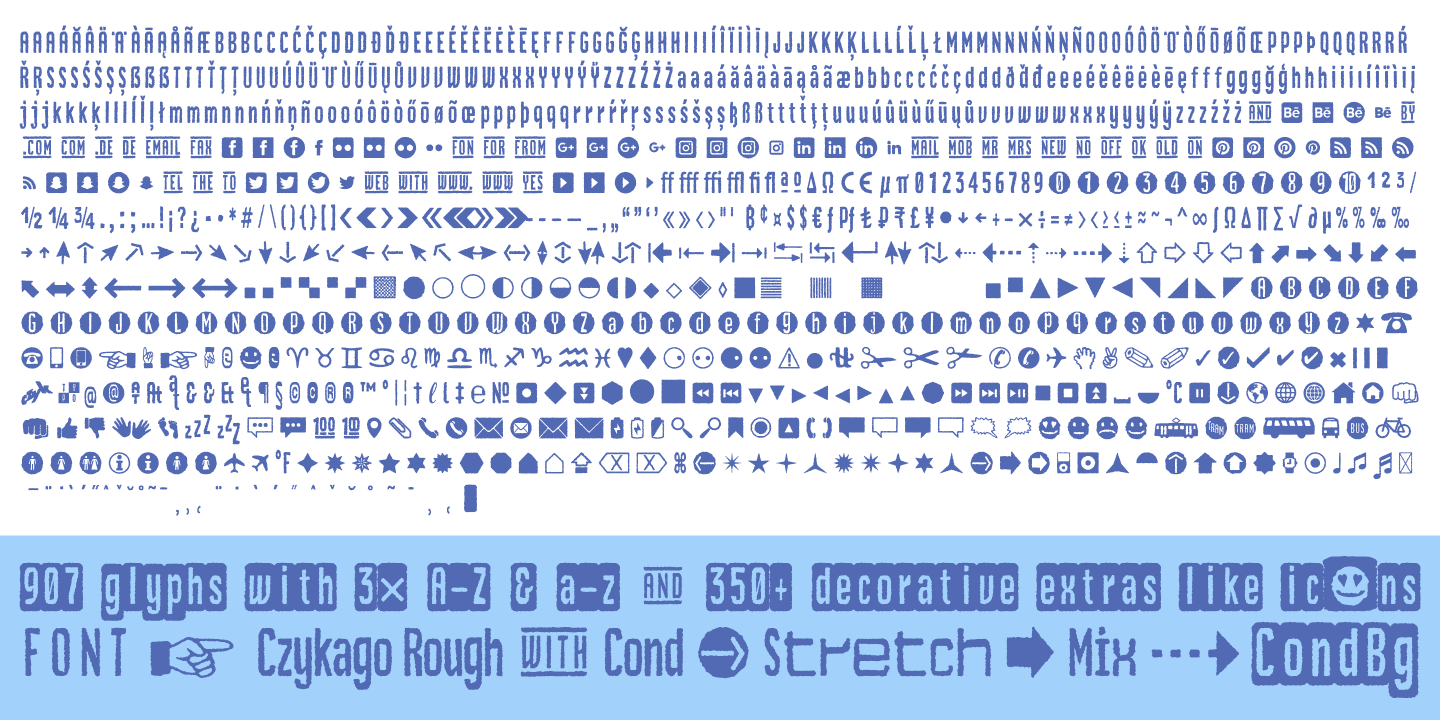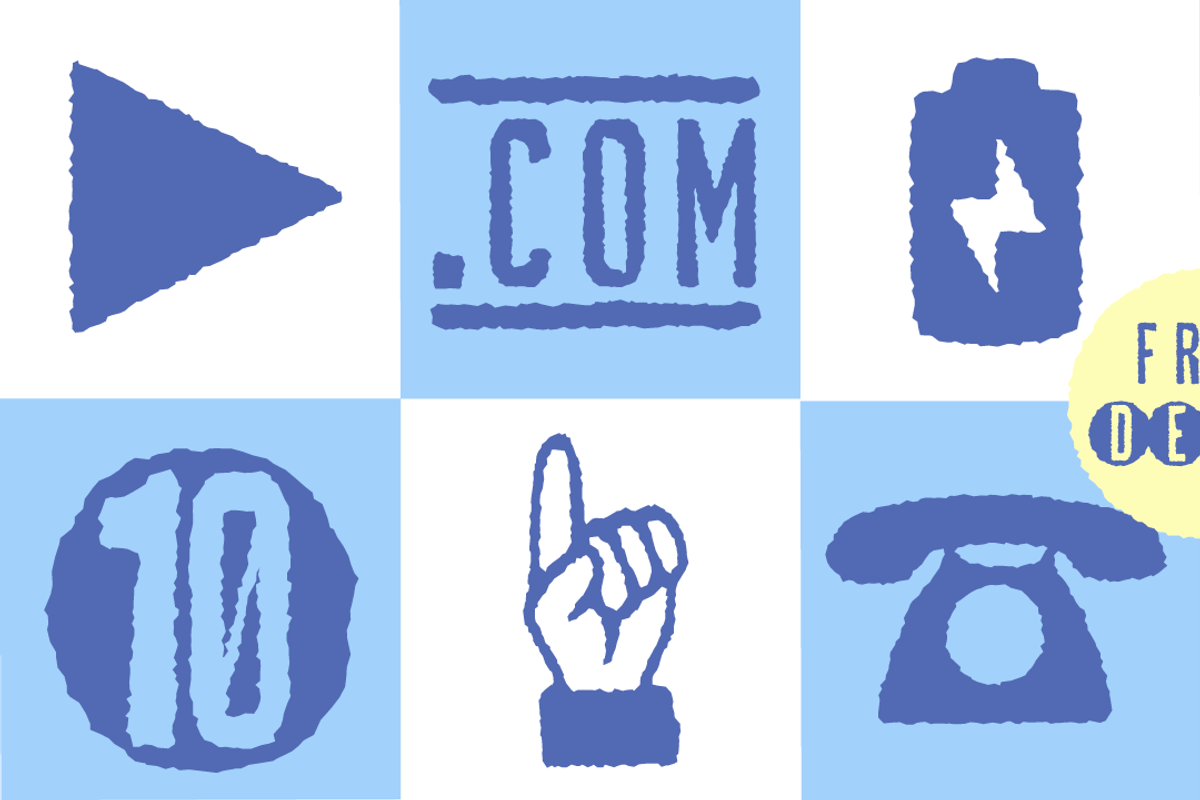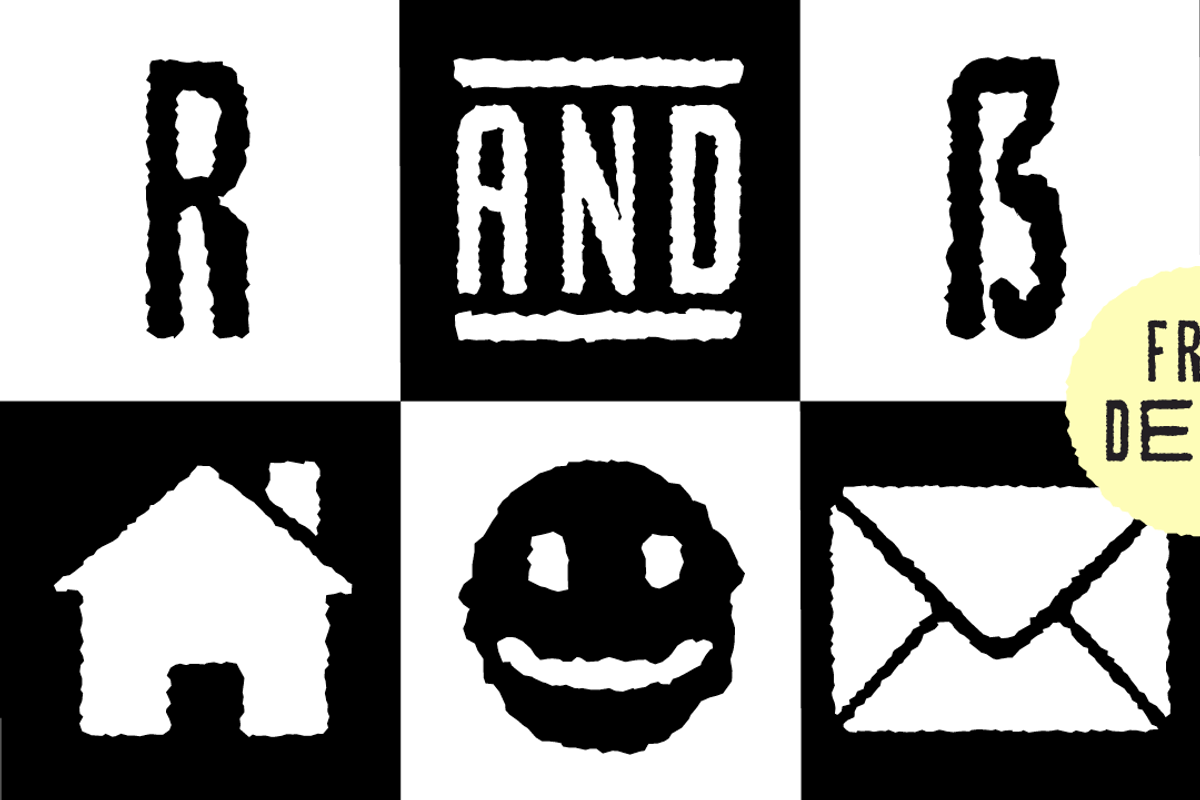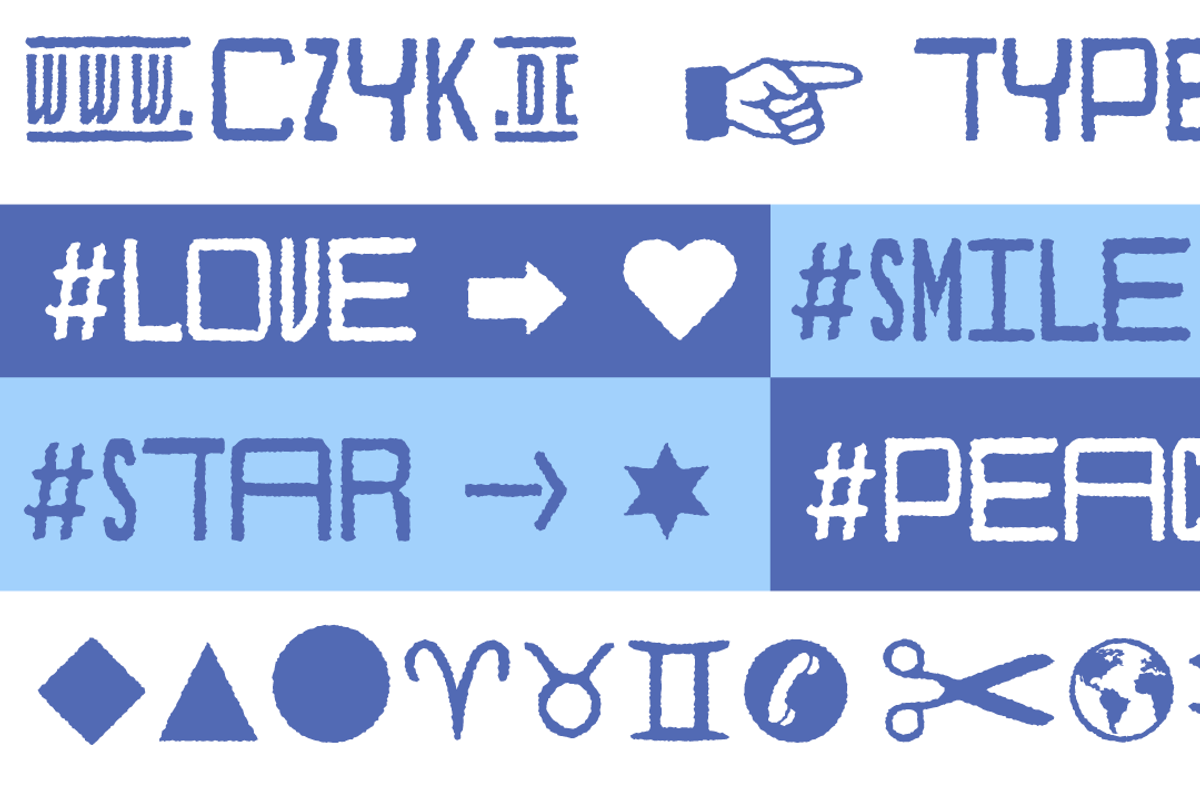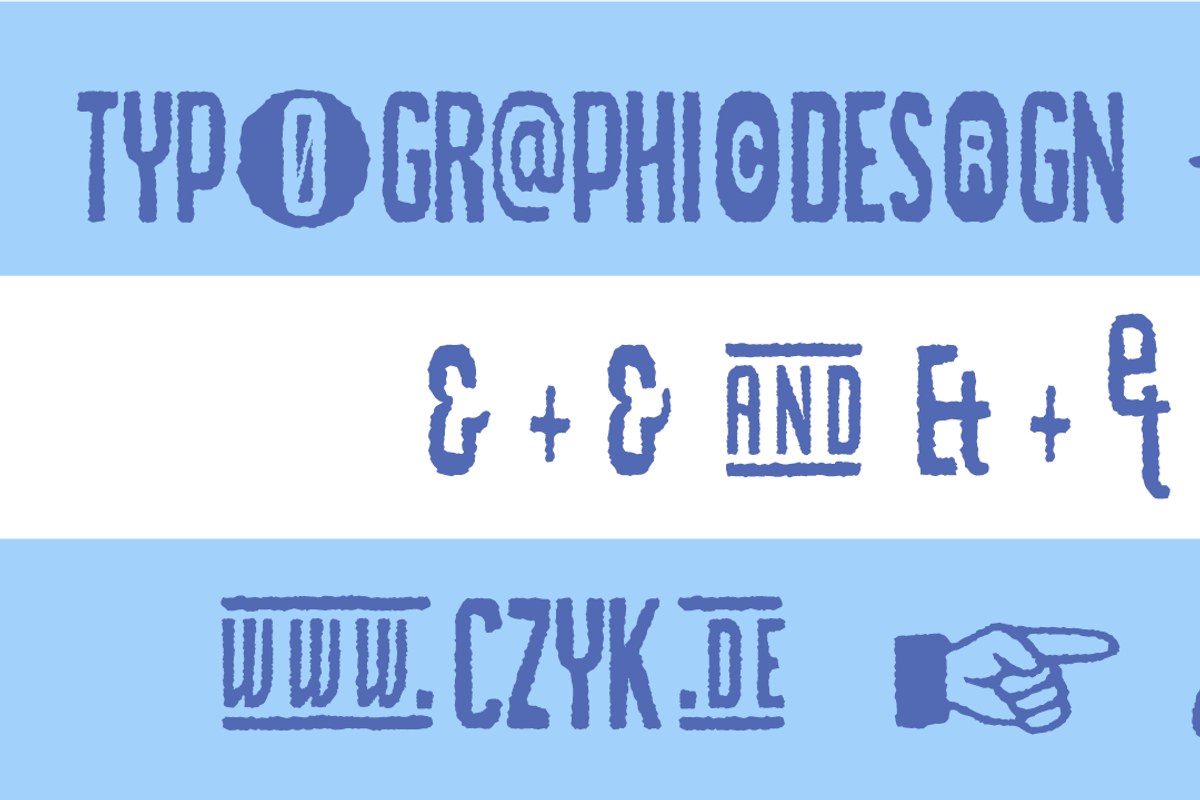
FONT | Czykago Rough
From 2019 back to the 90s … The typeface “Czykago Rough” by Alexander Branczyk and Manuel Viergutz is a re-issue of the font “Czykago” published in 1995 by the font label “Face2Face”. Designed as a re-release for the Font Foundry “Typo Graphic Design” in 2019. The rough sans serif display font is inspired by the 80s and 90s.
907 glyphs with 3× A–Z & a–z and 350+ decorative extras like icons, arrows, dingbats, emojis, symbols, sign of the zodiac, geometric shapes, catchwords, decorative ligatures (type the word #LOVE for ❤ or #SMILE for ☺ as OpenType-Feature dlig) and stylistic alternates (4× stylistic sets). For use in logos, magazines, posters, advertisement plus as webfont for decorative headlines. The font works best for display size.